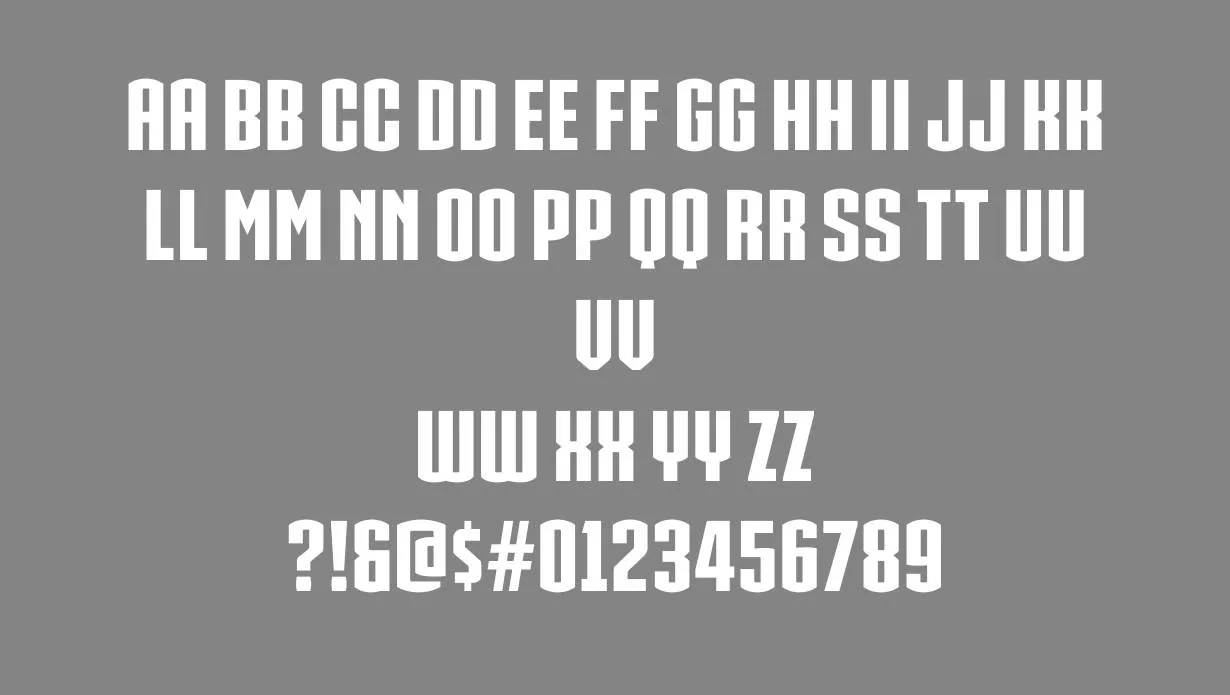
The Iron Man of War font is often utilized in designs associated with action movies, superhero themes, or gaming projects. It adds a bold and powerful touch to titles and headings, ideal for posters or promotional materials.